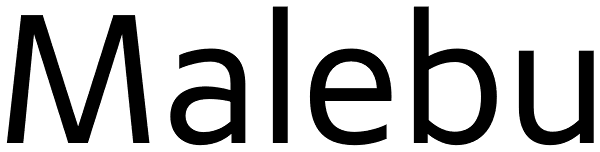
Malebu
Malebu is a new sans serif font that was created based on grotesque and humanist models with certain geometric features. It’s clear, simple, gentle and friendly, can be used in text sizes. Its easy to read in long texts, magazines, books and the...